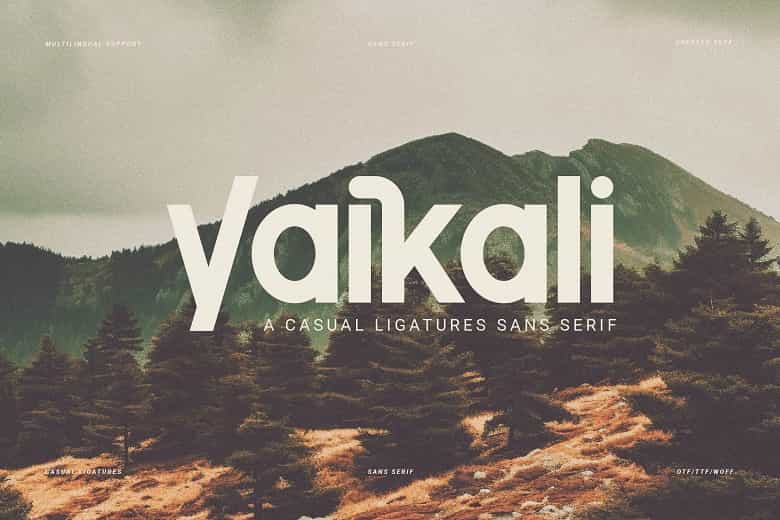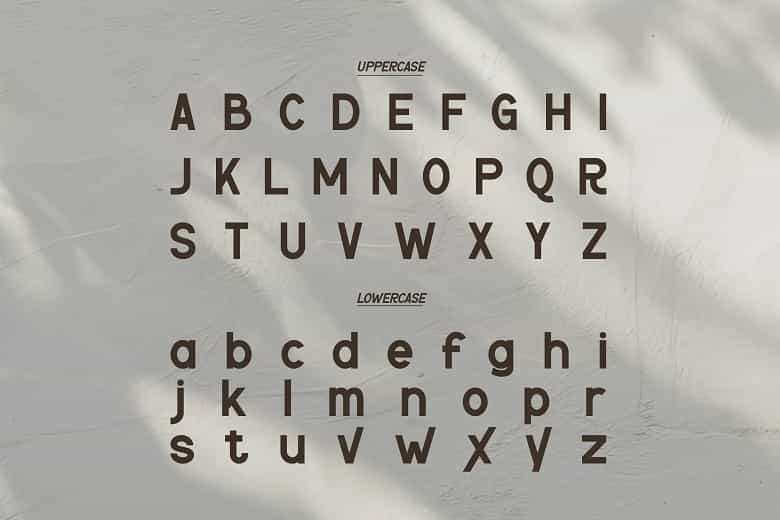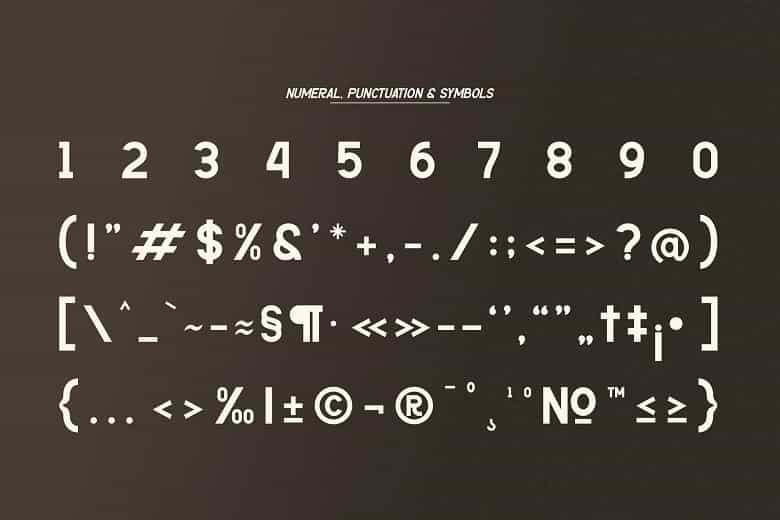
Yaikali is a casual ligatures sans serif typeface, from Denustudios, It’s suitable for any projects such as: logos, branding projects, homeware designs, product packaging, mugs, quotes, posters, shopping bags, t-shirts, book covers, name card, invitation cards, greeting cards, label, special events, and all your other lovely projects that need a Casual Ligatures Sans Serif flavor.